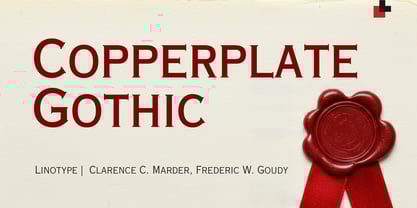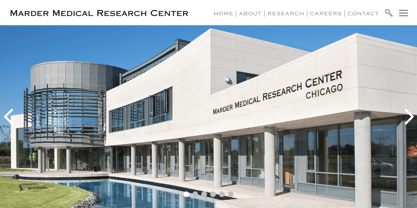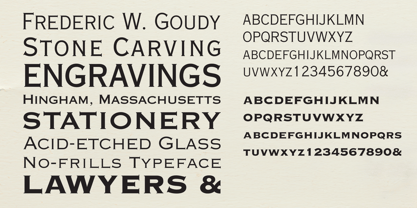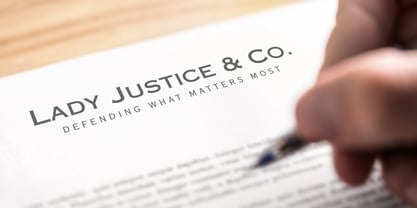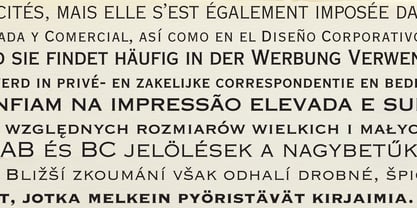
Copperplate Gothic
by Linotype
Copperplate Gothic Font Family was designed by Clarence C. Marder, Frederic W. Goudy and published by Linotype. Copperplate Gothic contains 9 styles family package options.
This American original was designed in 1901 by Frederic W. Goudy for the American Type Founders in Jersey City. Copperplate Gothic is an all caps font which looks like a sans serif at first glance. But closer examination reveals tiny, pointy serifs which almost seem to round off the letters. Designers rely on this font’s lofty and sublime impression and it is often seen in advertisements, but it has also made a place for itself in private and business correspondence and corporate design. The AB and BC designations in the style names refer to the relative sizes of the capitals and small capitals.
Designers: Clarence C. Marder, Frederic W. Goudy
Publisher: Linotype
Foundry: Linotype
Design Owner: Linotype